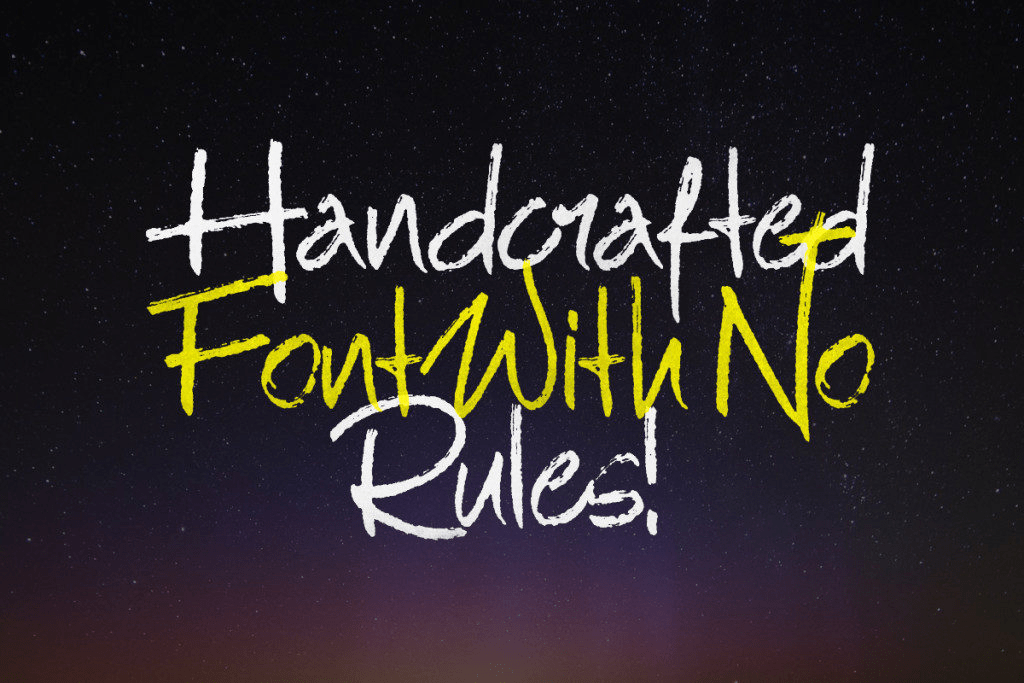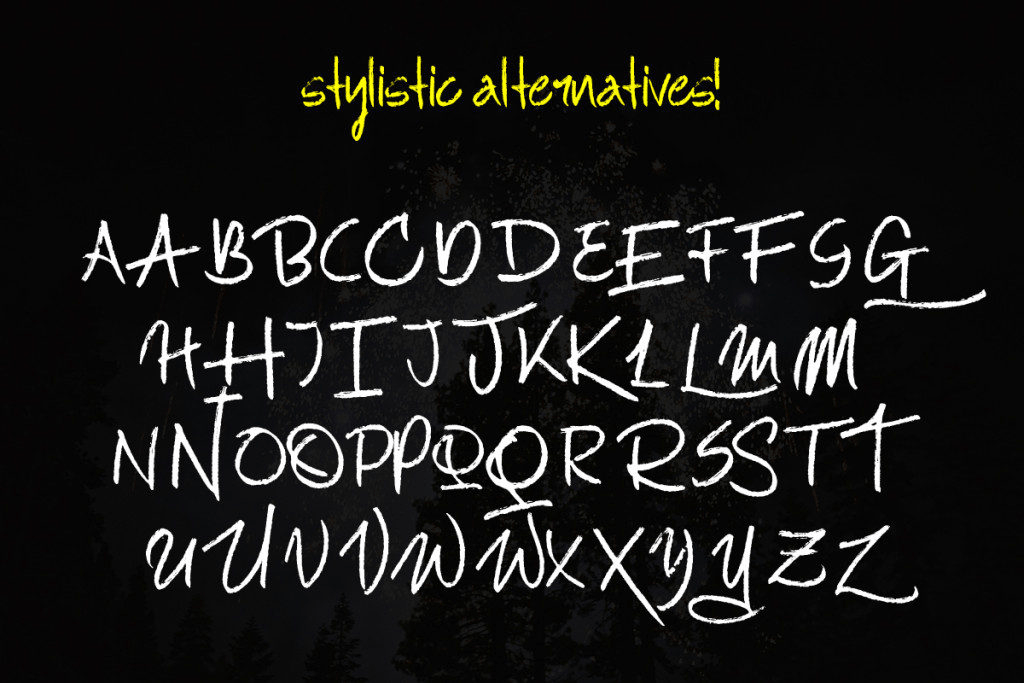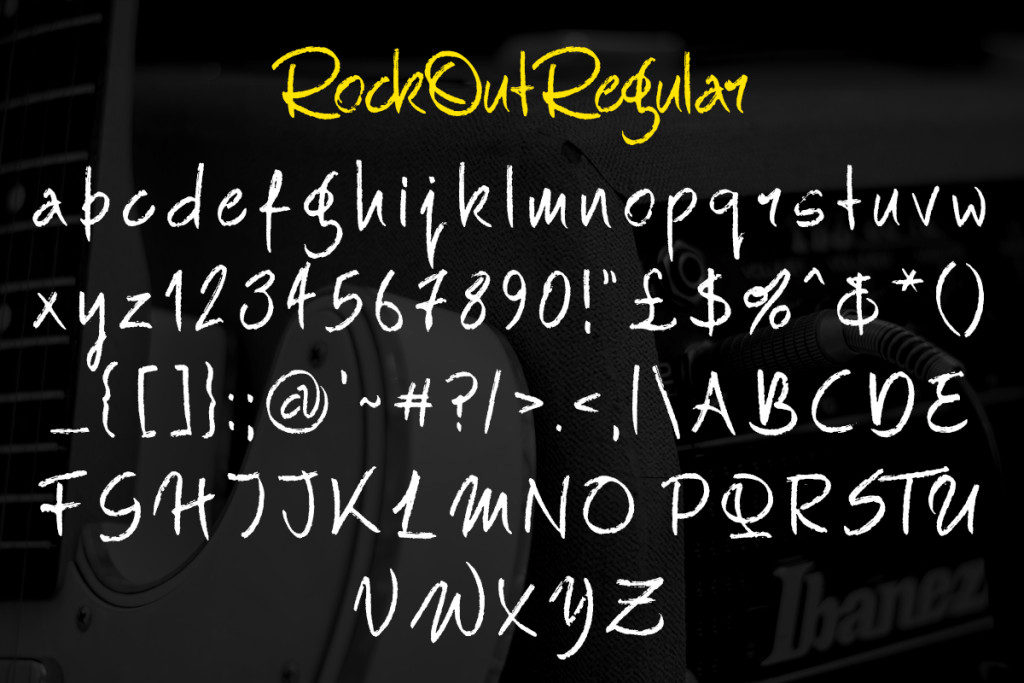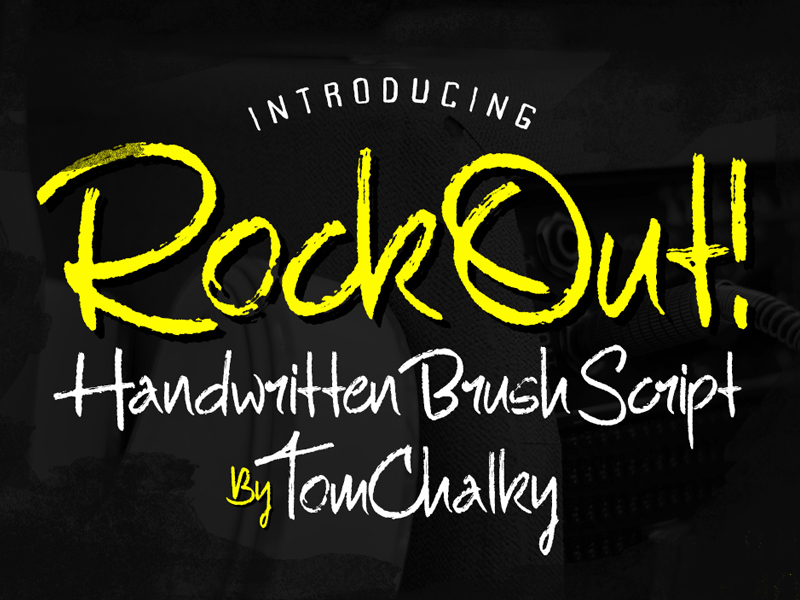
Rock Out!
Introducing Rock Out – My latest Brush Script display font. Rock Out is rough, loud, creative and stands out from the crowd whilst still being a legible typeface. All of the uppercase letters have awesome Opentype Stylistic Alternatives that bring even…